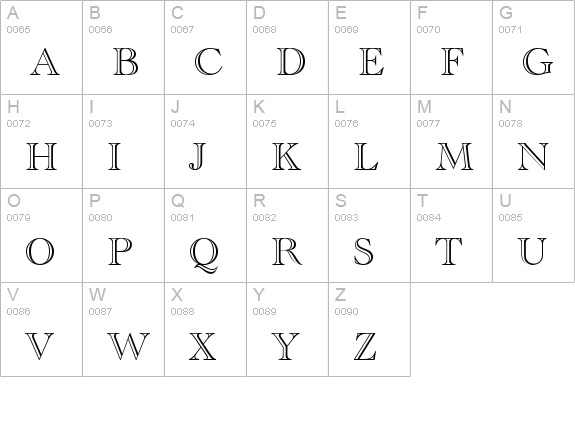
Academy Engraved Std font is a sophisticated and elegant typeface that exudes a sense of timeless charm and refinement. With its classic engraved style, this font is perfect for adding a touch of sophistication to any design project. The intricate details and clean lines of Academy Engraved Std make it a versatile choice for a wide range of applications, from invitations and stationery to logos and branding. The best part about Academy Engraved Std font is that it is freely available to download at FontsMarket.com. Whether you are a designer looking to elevate your projects or a business owner in need of a stylish font for your marketing materials, Academy Engraved Std is the perfect choice. Download this exquisite font today and add a touch of elegance to your designs.